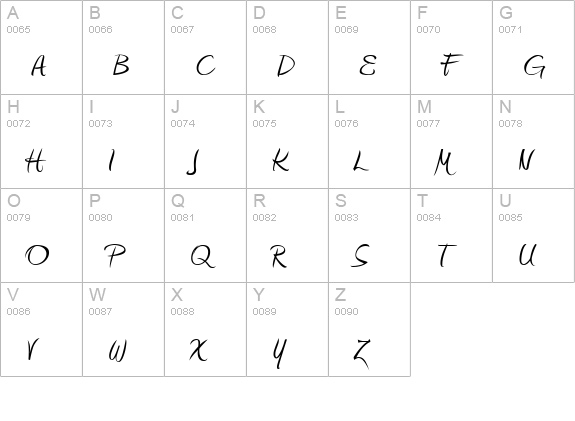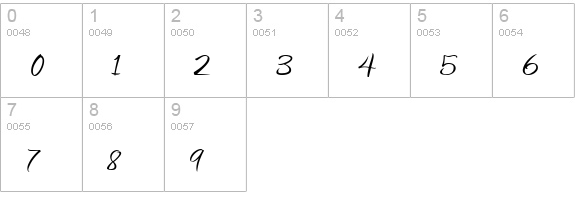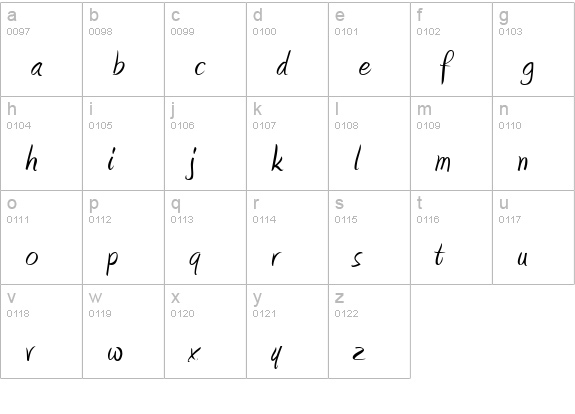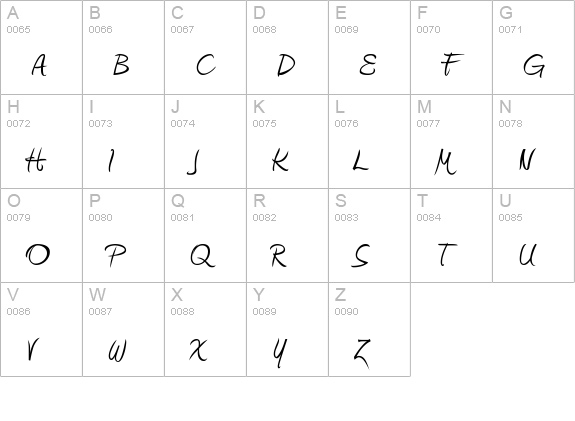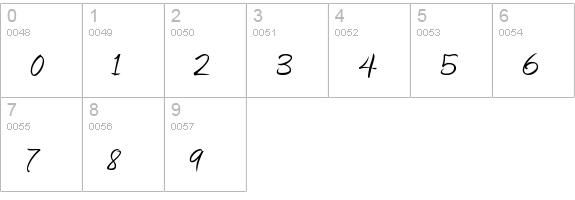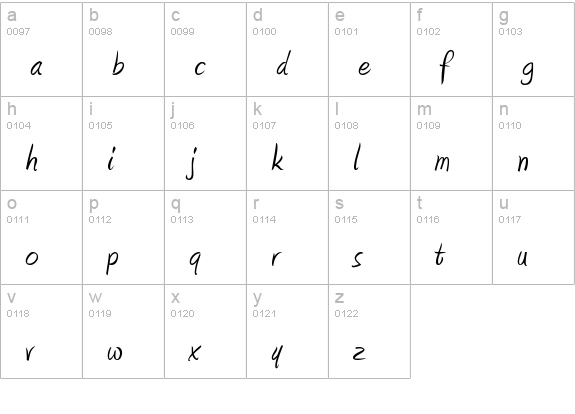
Amienne Font Details
Amienne font is a visually stunning and elegant typeface that exudes sophistication and charm. With its flowing lines and delicate curves, Amienne is perfect for adding a touch of class to any design project. Whether you're creating invitations, branding materials, or website headers, this font will make your text stand out in a beautiful and captivating way. What's even better is that Amienne font is free to download at FontsMarket.com, making it accessible to all designers looking to elevate their creations with a touch of luxury. Don't miss out on the opportunity to enhance your designs with the timeless beauty of Amienne font – download it today and let your creativity shine!